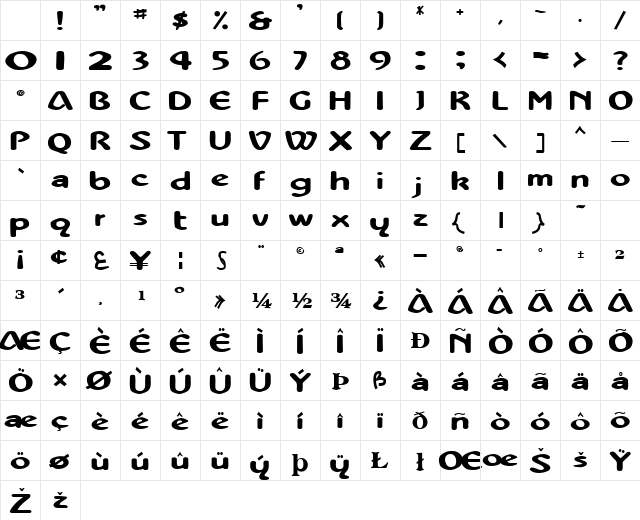
Complete MorEhouseType97 Bold glyph index. Displaying only characters natively supported by MorEhouseType97 Bold font.
MorEhouseType97 is a composed and adaptable typeface that performs quietly and consistently across a wide range of design contexts. Its bold stroke weight gives it real presence on the page.